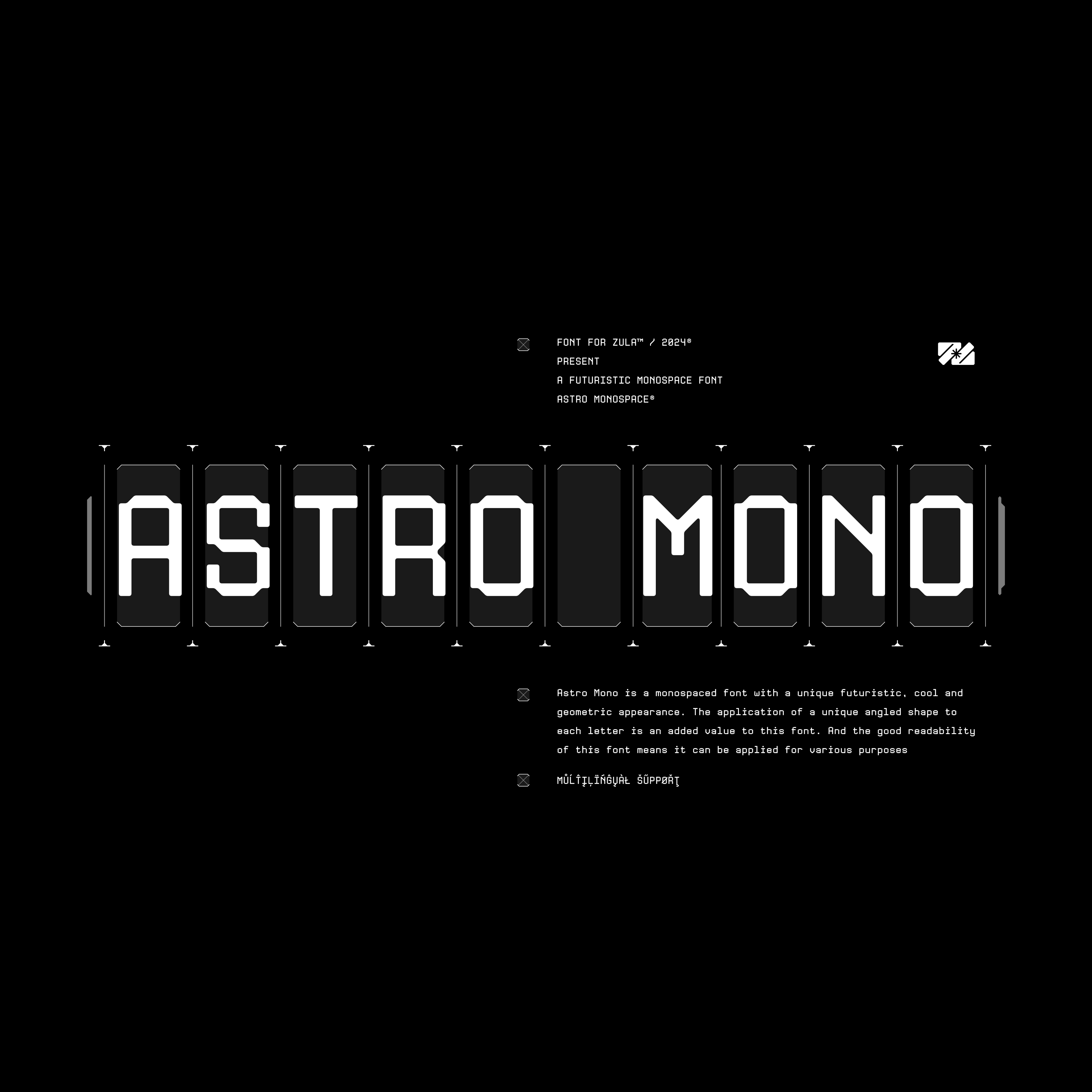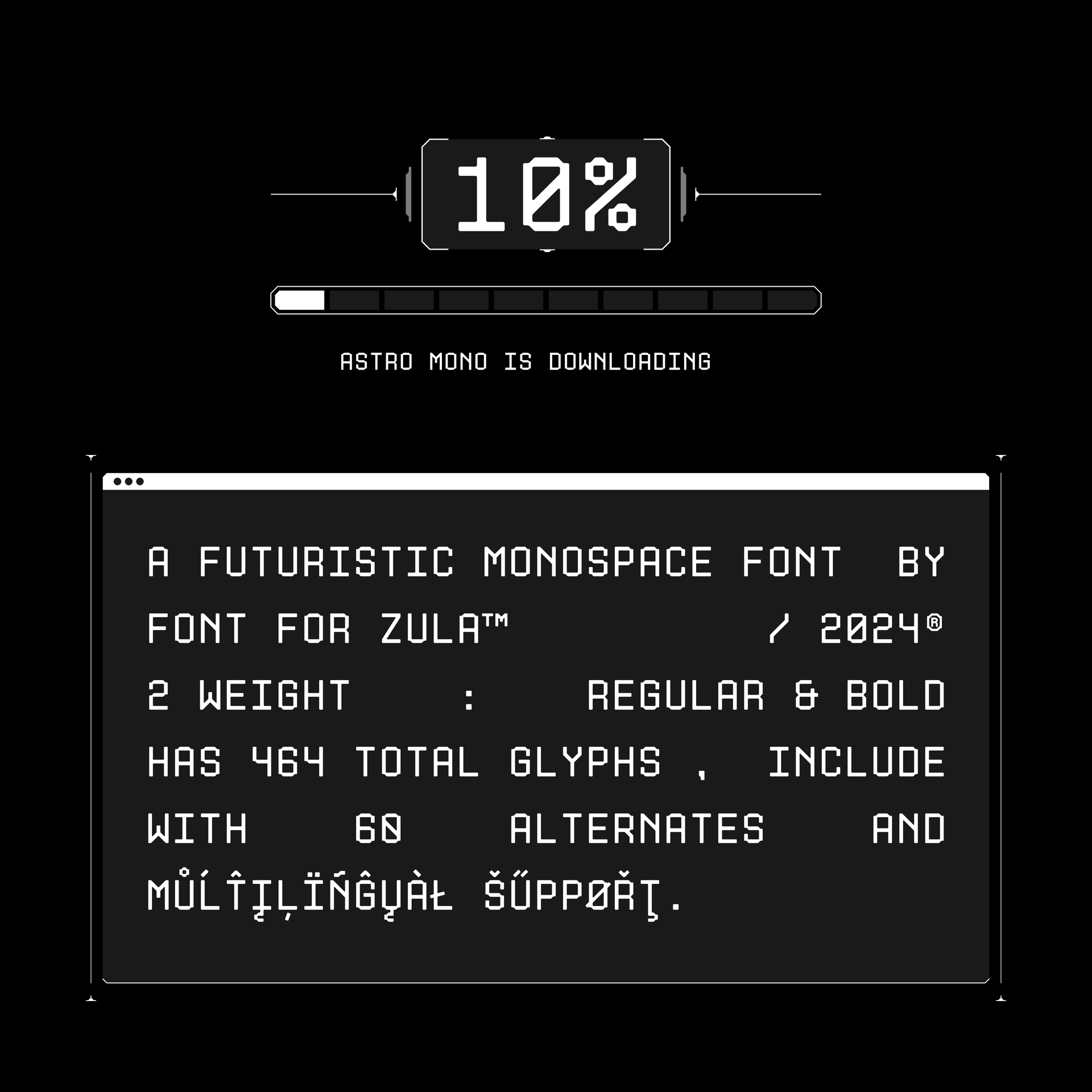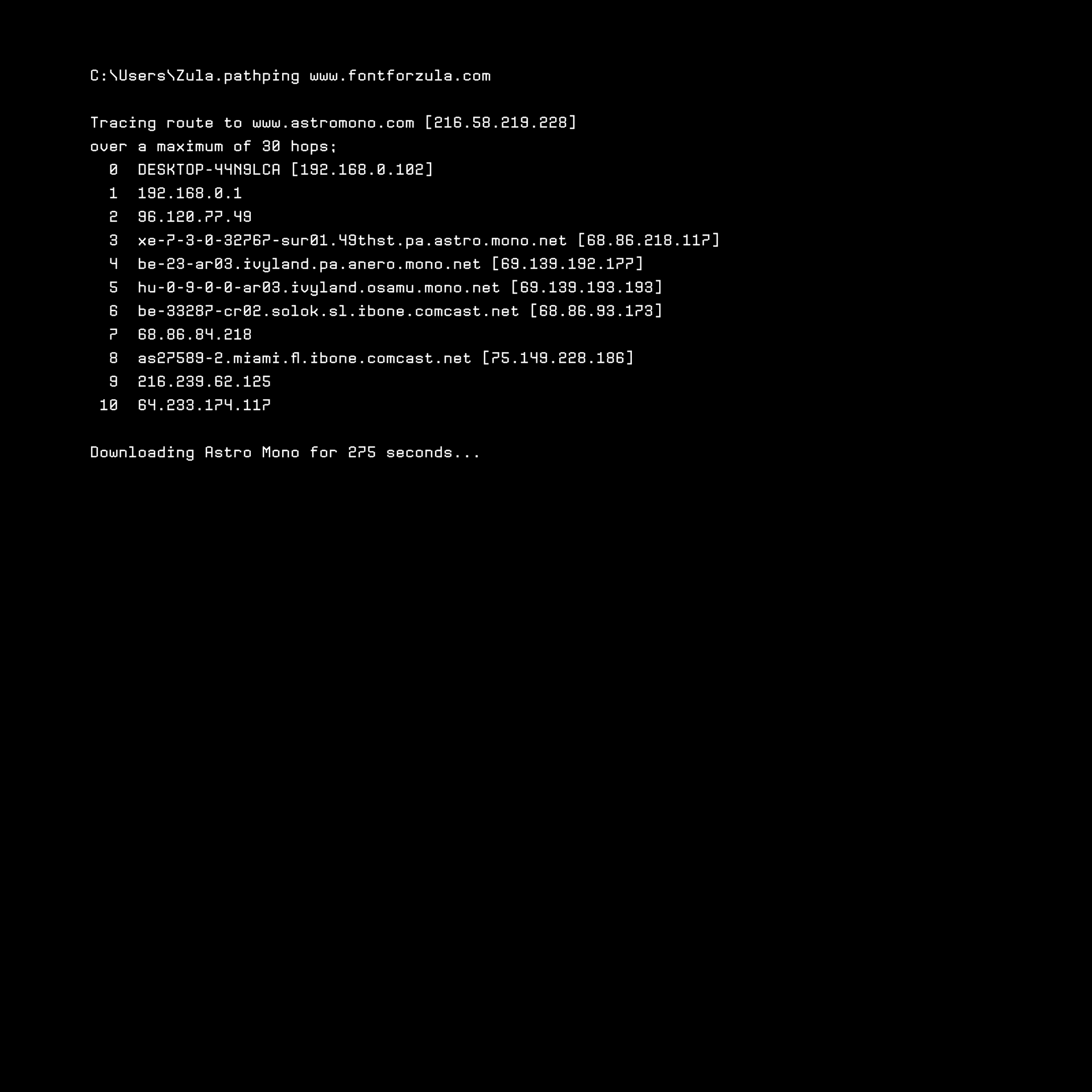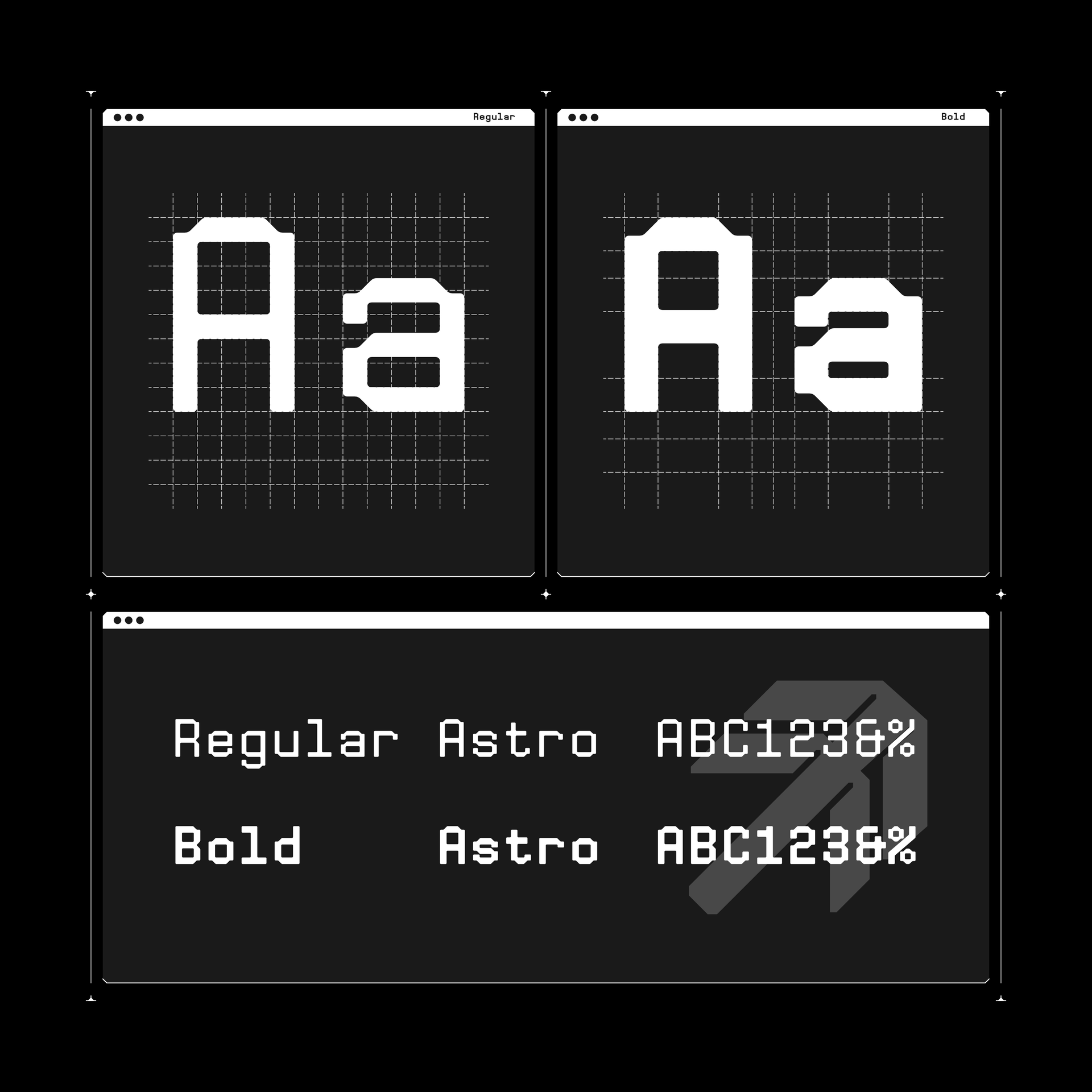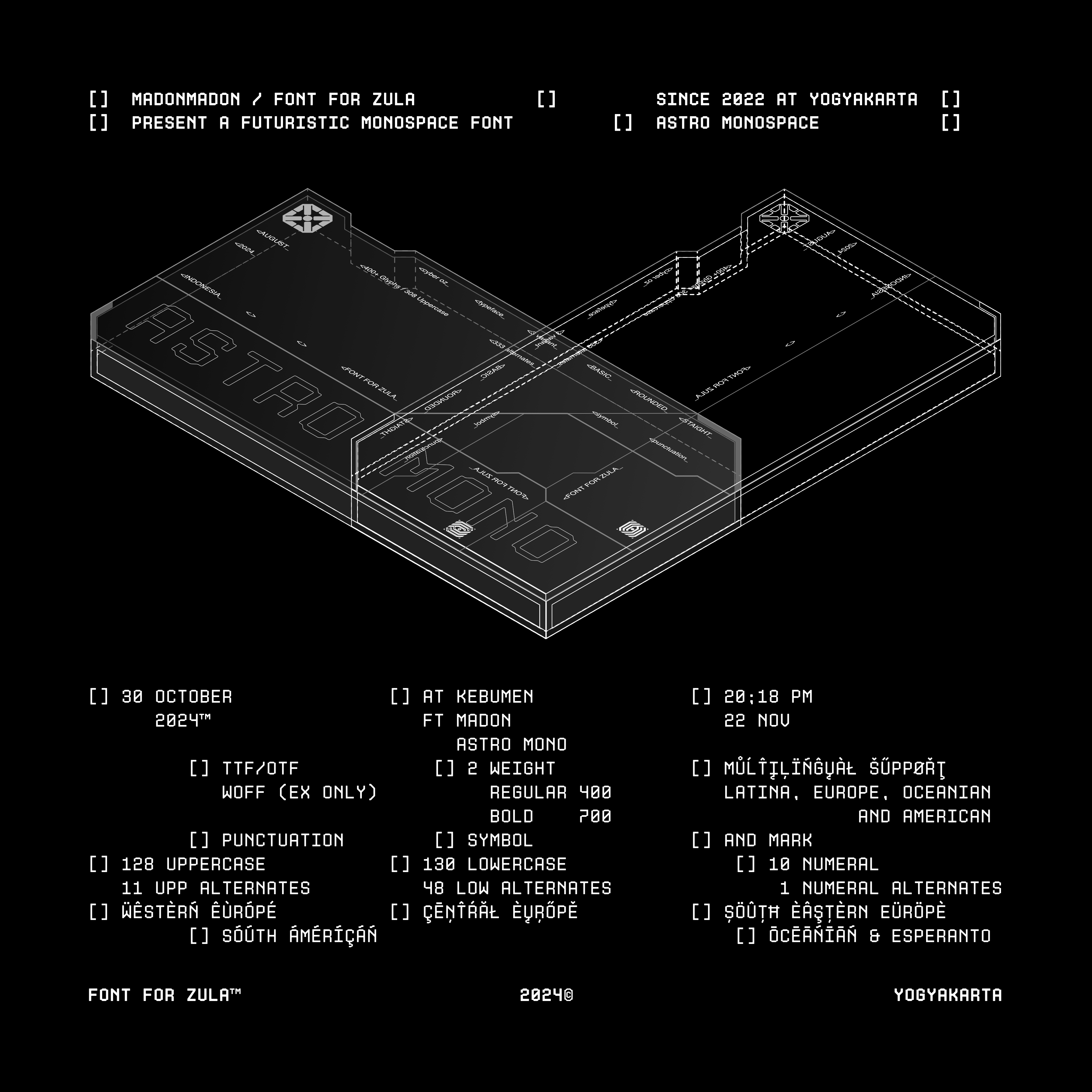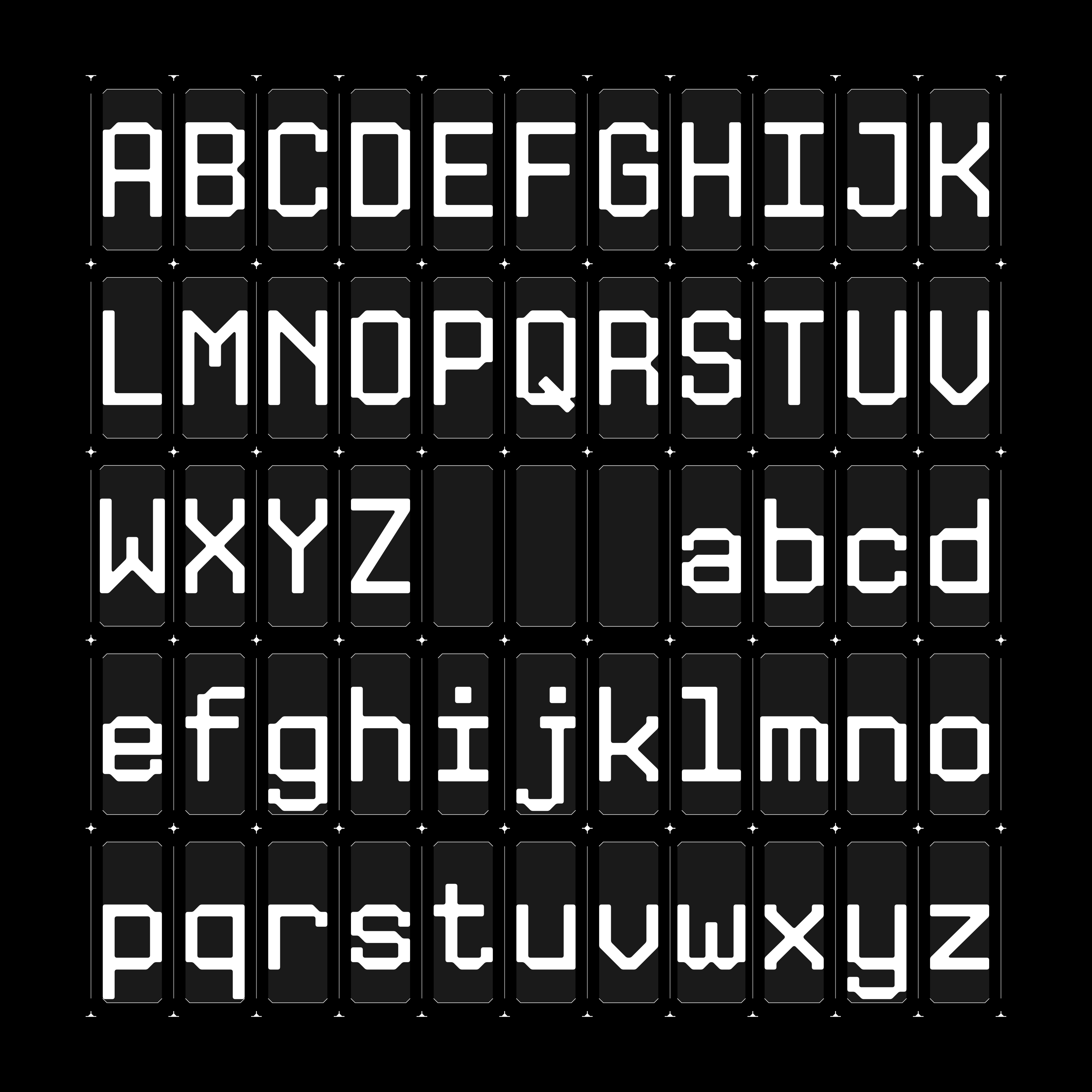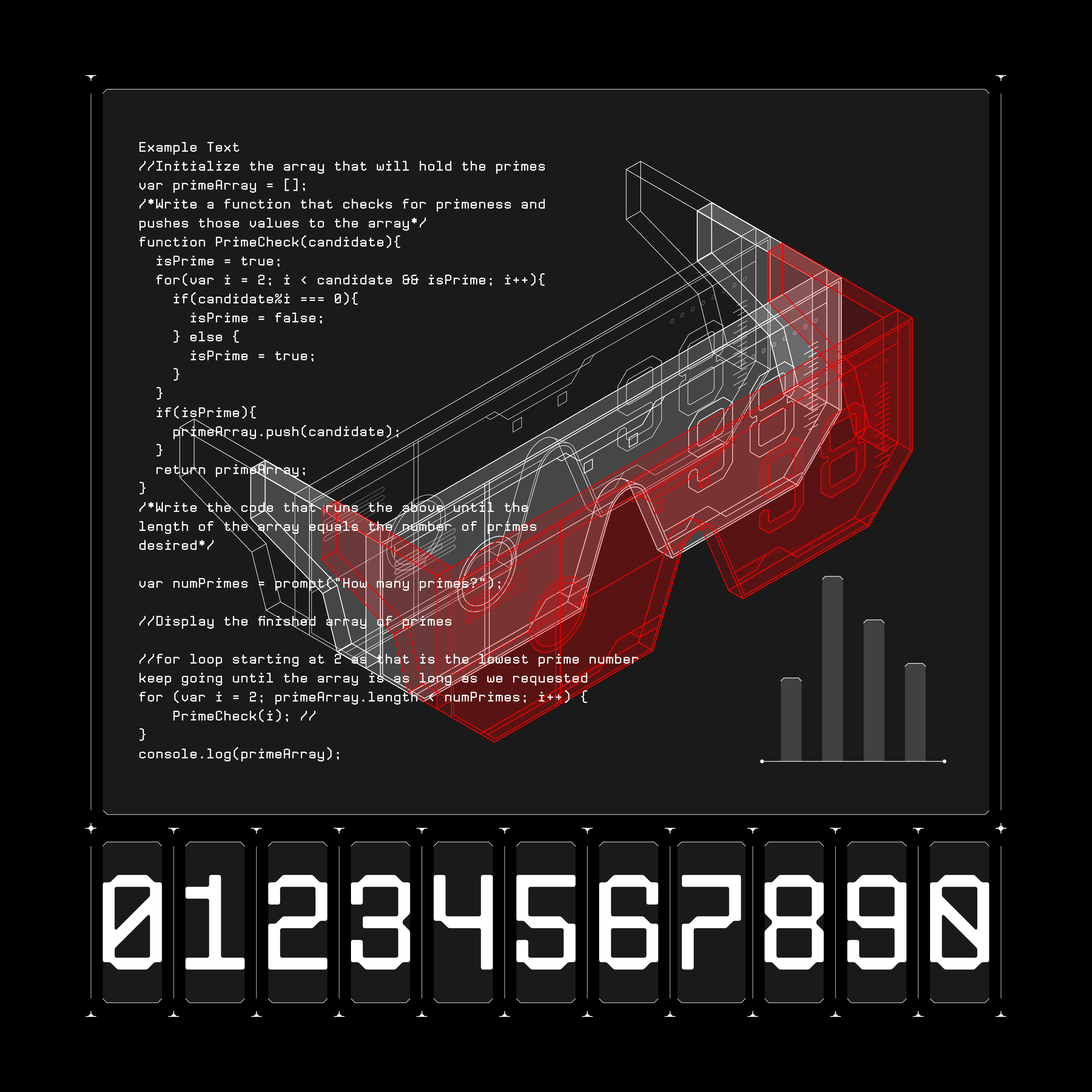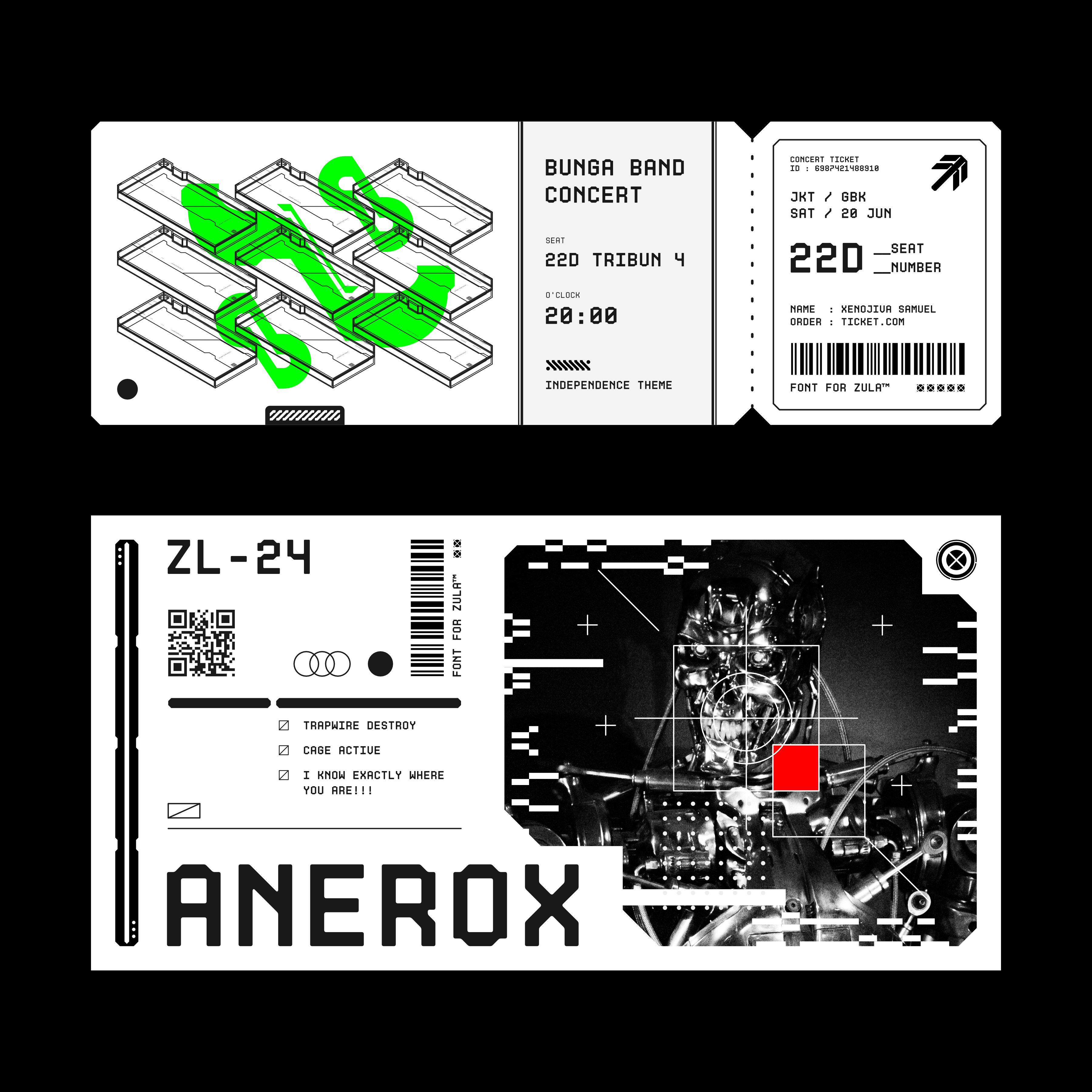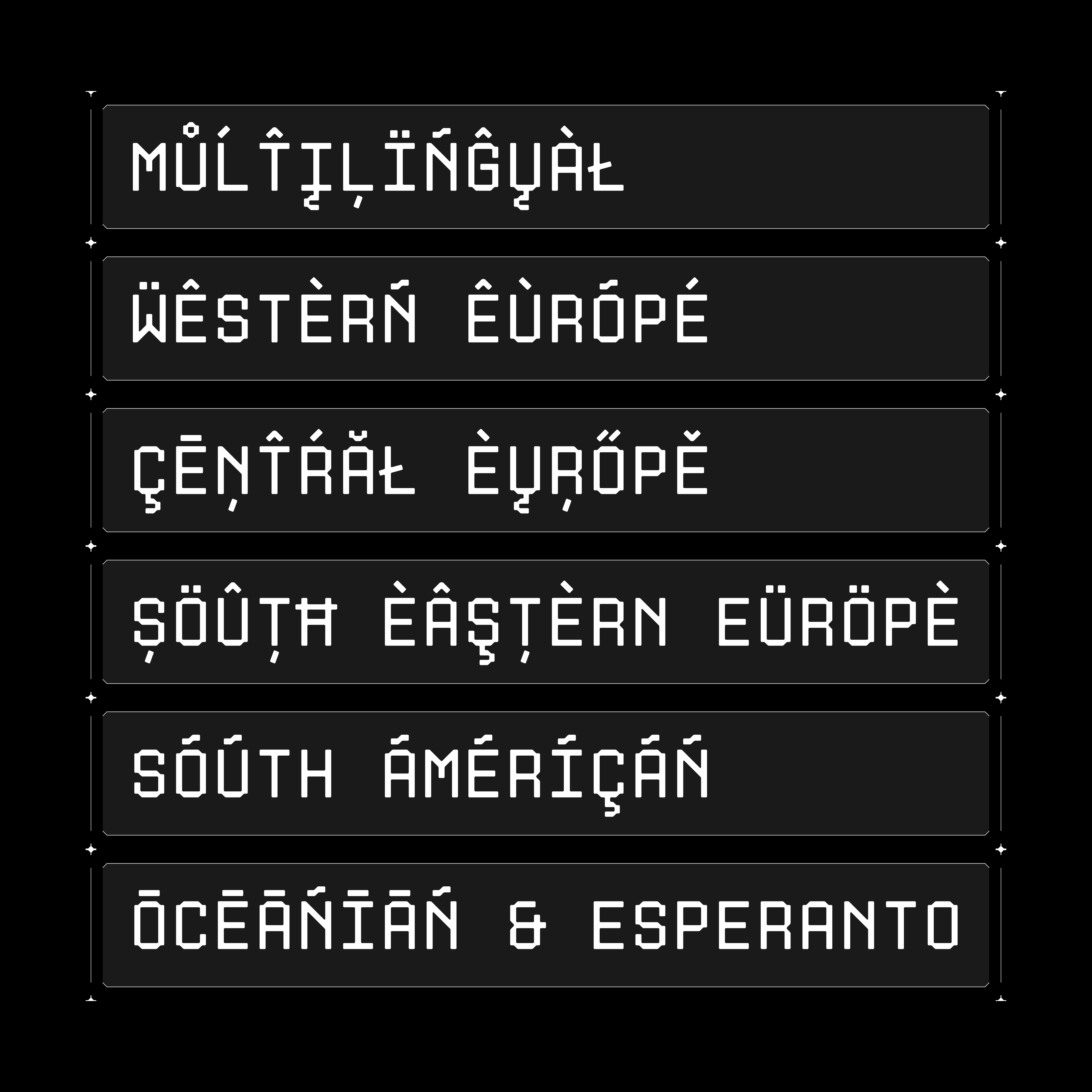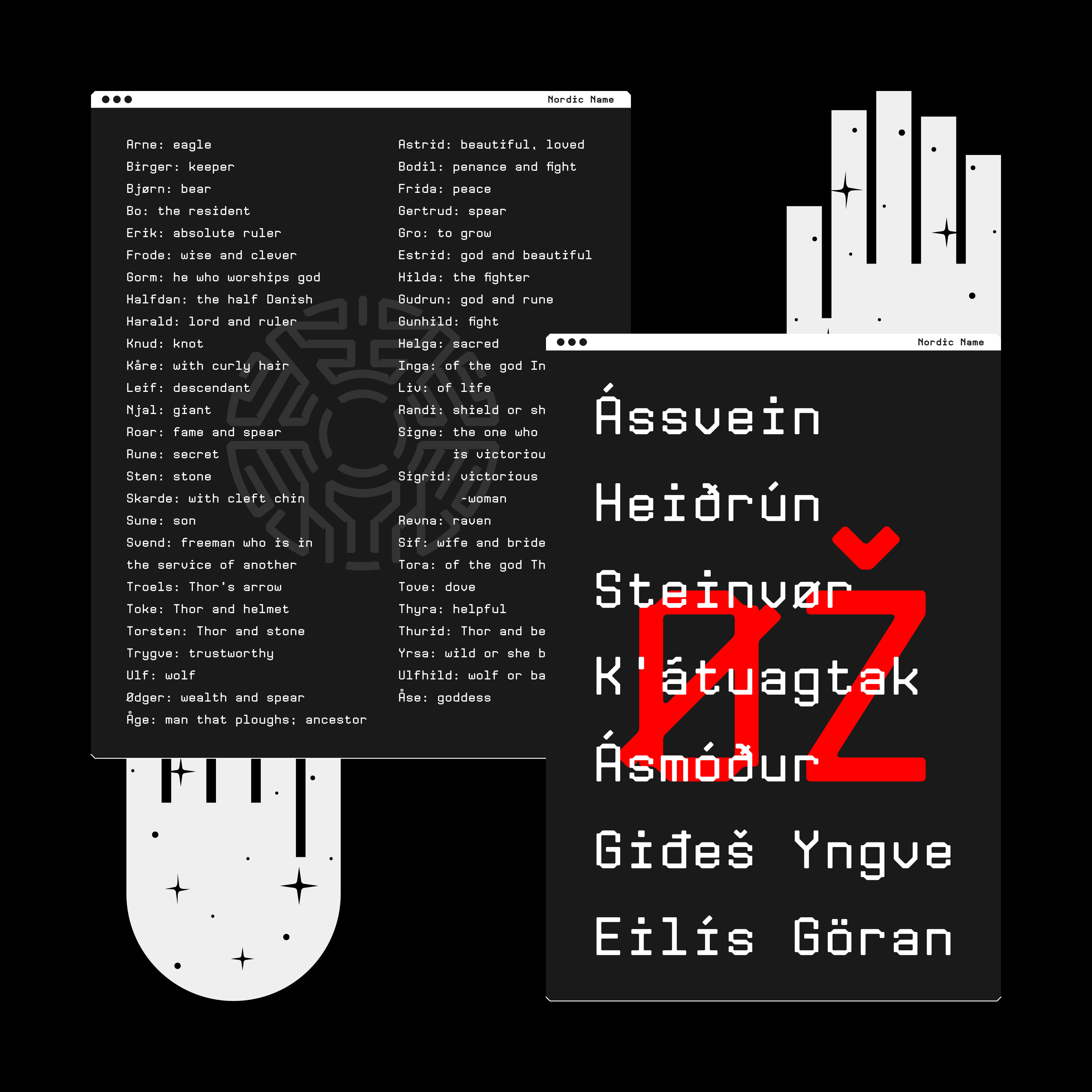
Astro Monospaced Typeface
Astro Mono is a monospaced font with a unique futuristic, cool and geometric appearance.
The application of a unique angled shape to each letter is an added value to this font. And
the good readability of this font means it can be applied for various purposes. This font has more than 450 glyphs with more than 60 alternative letters, and supports multilingualism.
Astro Mono Includes :
• 2 Weight Style : Regular and Bold
• Multilingual Languange support ; Western Europe, Central Europe, South Eastern
Europe, South American, Oceanian, and Esperanto
• 128 UPPERCASE
• 11 Uppercase Alternates
• 130 Lowercase
• 48 Lowercase Alternates
• 10 Numeral
• 1 Numeral Alternates
• Punctuation
• Symbol
• and Mark